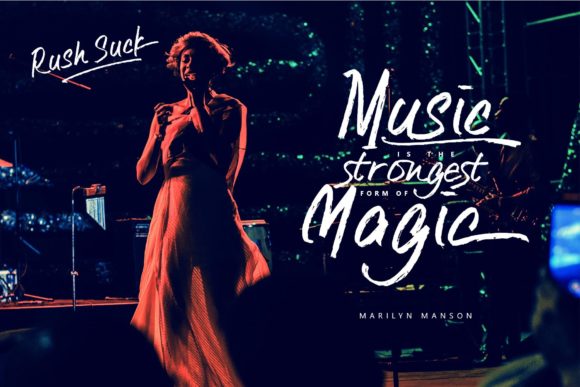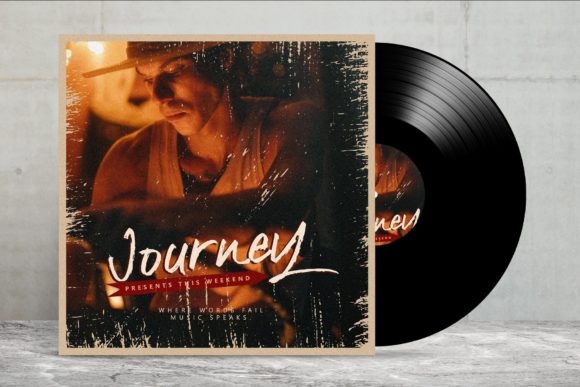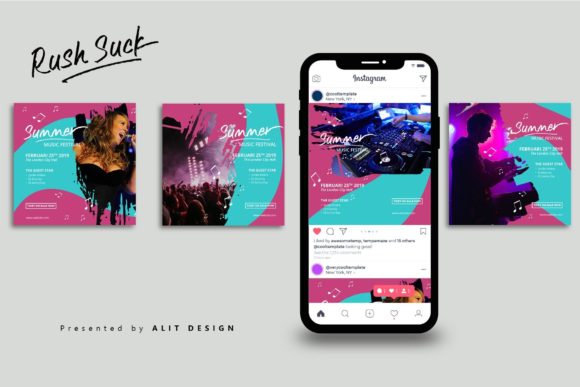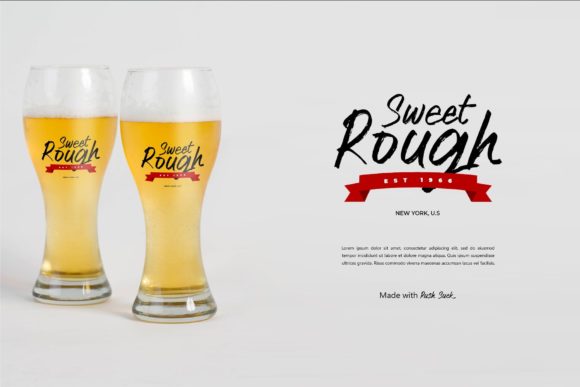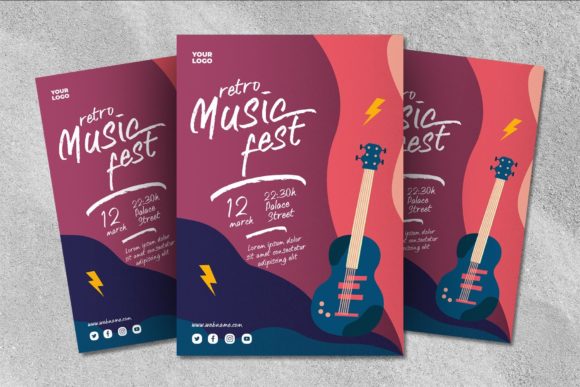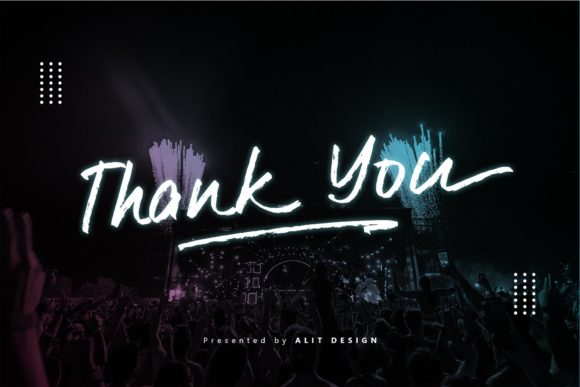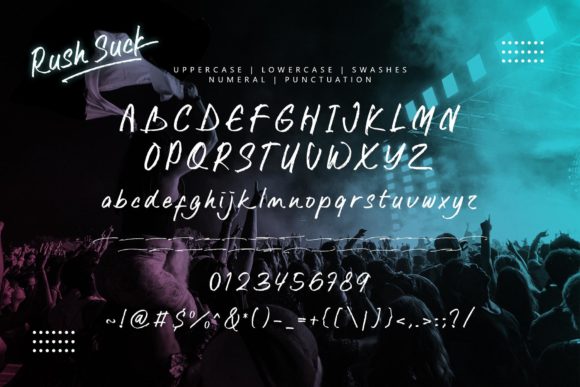
About Rush Suck Font
Rush Suck is a cool, casual and trendy handwritten font. It is PUA encoded which means you can access all of the glyphs and swashes with ease! Fall in love with its incredibly versatile style and use it to create spectacular designs!